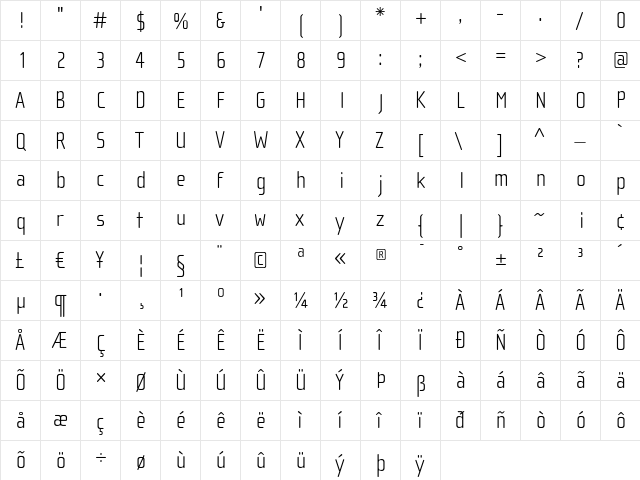
ChollaSans-Thin Thin
Design Context for ChollaSans-Thin Typeface
ChollaSans-Thin is a composed and adaptable typeface that performs quietly and consistently across a wide range of design contexts. Its slender proportions lend an understated elegance to any composition.